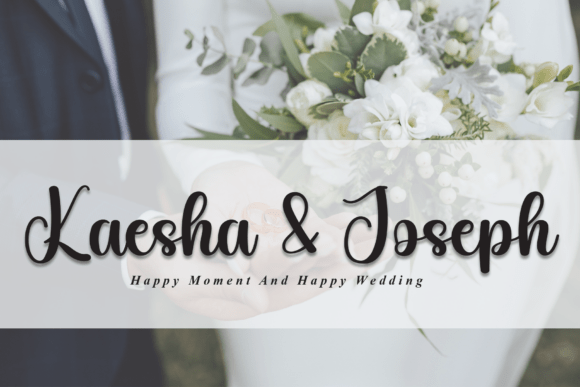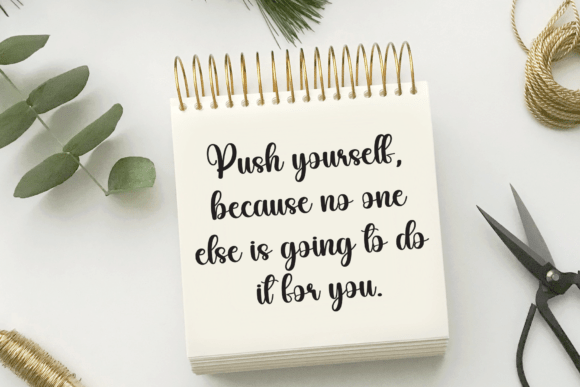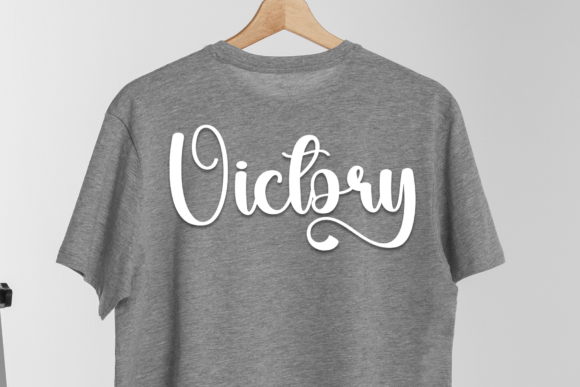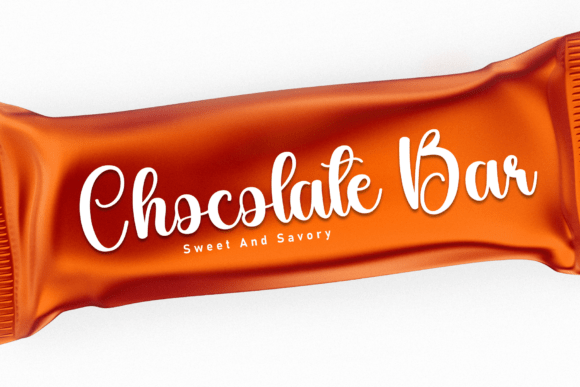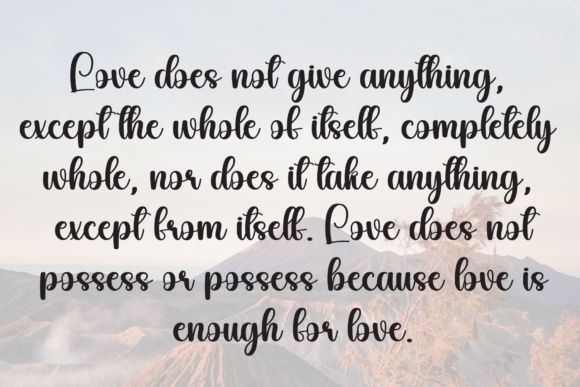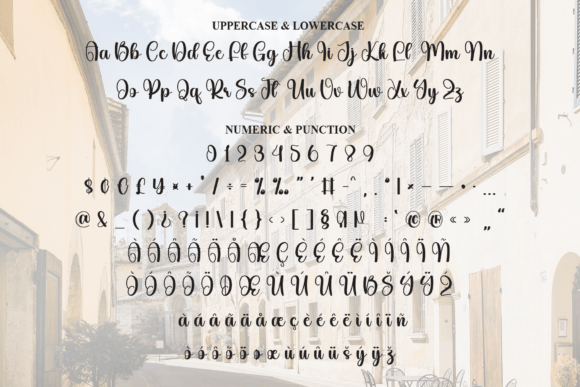
Hello Charming Font: Elevate Your Designs with Elegance and Fluidity
In the world of typography, fonts play a crucial role in conveying the tone and personality of a brand, product, or creative project. For designers and crafters seeking to add a touch of sophistication and charm to their work, the Hello Charming font is an excellent choice. This stylish handwritten script font is designed to radiate elegance and fluidity, making it perfect for a wide range of applications, from branding and invitations to creative projects and more.
The Characteristics of Hello Charming Font
Hello Charming is a beautifully crafted font that boasts smooth, flowing strokes that create a natural and sophisticated feel. Its elegant and fluid design makes it an ideal choice for designers looking to add a personal, artistic touch to their work. The font’s graceful balance of charm and modernity ensures that it can be used in a variety of contexts, from traditional and classic designs to modern and trendy ones.
Key Features of Hello Charming Font
- Elegant and Fluid Design: Hello Charming’s smooth, flowing strokes create a natural and sophisticated feel that elevates any design.
- Handwritten Script Style: This font’s handwritten script style adds a personal, artistic touch to any project, making it perfect for creative and design applications.
- Versatile and Adaptable: Hello Charming’s balance of charm and modernity makes it suitable for a wide range of designs, from traditional and classic to modern and trendy.
- Perfect for Branding and Invitations: The font’s elegant and sophisticated design makes it an excellent choice for branding, invitations, and other high-end applications.
Uses of Hello Charming Font
Hello Charming font is a versatile typeface that can be used in a variety of creative projects, including:
- Branding and Logo Design: Create a lasting impression with Hello Charming’s elegant and sophisticated design.
- Invitations and Event Design: Add a touch of luxury and sophistication to your invitations and event designs.
- Packaging and Product Design: Elevate your product design with Hello Charming’s unique and artistic style.
- Advertising and Marketing Materials: Stand out from the crowd with Hello Charming’s elegant and fluid design.
- Digital and Print Media: Use Hello Charming in a variety of digital and print media, including magazines, brochures, and more.
Why Choose Hello Charming Font?
With so many fonts available, why choose Hello Charming? Here are just a few reasons:
- Unique and Artistic Style: Hello Charming’s handwritten script style adds a personal, artistic touch to any design.
- Elegant and Sophisticated Design: The font’s smooth, flowing strokes create a natural and sophisticated feel that elevates any design.
- Versatile and Adaptable: Hello Charming can be used in a wide range of designs and applications.
- Easy to Read and Understand: Despite its elegant and artistic style, Hello Charming is easy to read and understand, making it perfect for body text and headlines.
Tips for Using Hello Charming Font
To get the most out of Hello Charming font, here are a few tips:
- Use it Sparingly: Hello Charming’s elegant and sophisticated design makes it perfect for headings and titles. Use it sparingly to create a lasting impression.
- Pair it with Other Fonts: Experiment with pairing Hello Charming with other fonts to create a unique and visually appealing design.
- Adjust the Font Size and Style: Adjust the font size and style to suit your design needs. Hello Charming looks great in a variety of sizes and styles.
Hello Charming font is a stylish and elegant handwritten script font that radiates elegance and fluidity. Its smooth, flowing strokes create a natural and sophisticated feel, making it perfect for branding, invitations, and creative projects. With its versatile and adaptable design, Hello Charming is an excellent choice for designers and crafters seeking to add a touch of sophistication and charm to their work.